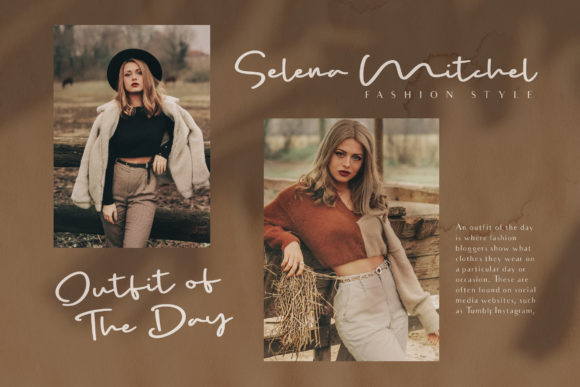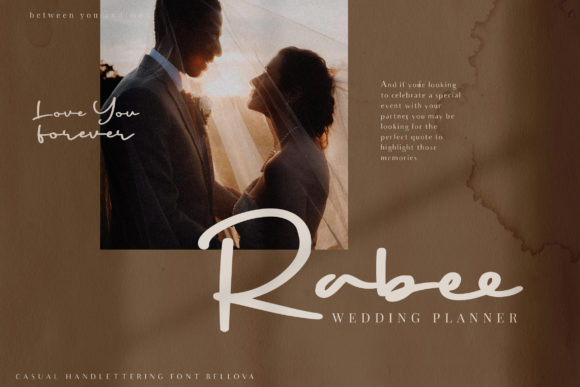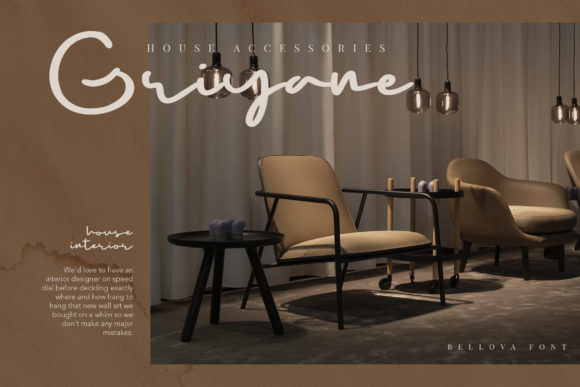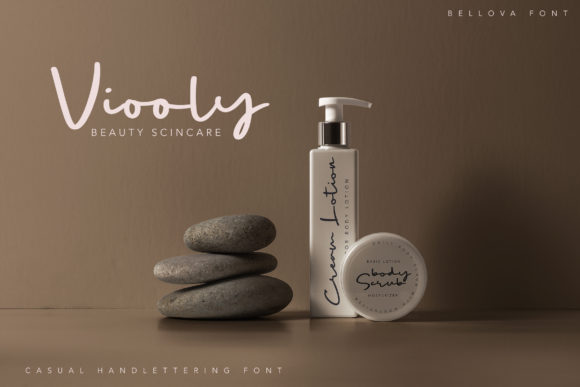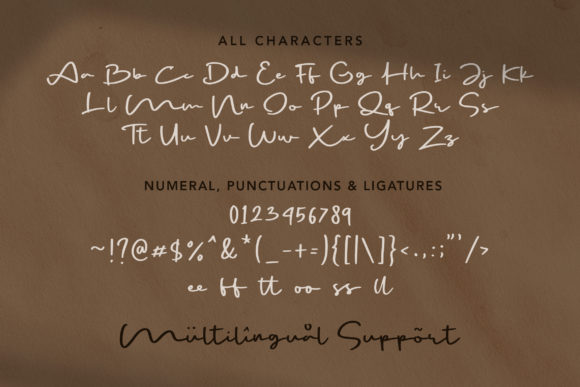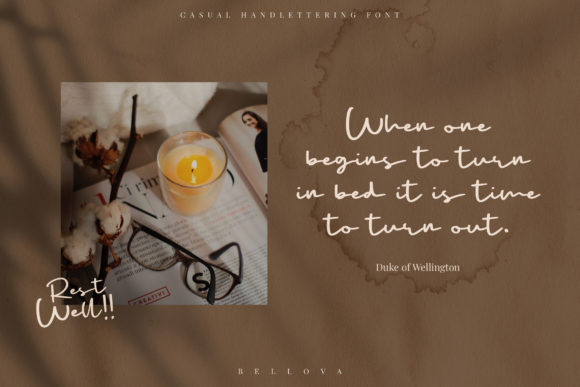
The Art of Handwritten Design: Introducing Bellova Font
Have you ever found yourself sitting in a cozy café, surrounded by scribbled notes and half-finished sketches, as the perfect design idea suddenly hits you? That’s exactly what happened to us when we discovered the Bellova Font – a refined and adaptable handwritten font that brings a touch of elegance to any design project.
Bellova Font is more than just a font – it’s a work of art that can elevate your designs to the next level. With its distinct and well-rounded letters, this font is perfect for creating fashionable designs that stand out from the crowd. Whether you’re a seasoned designer or just starting out, the Bellova Font is an invaluable asset to your toolkit, offering endless possibilities for creativity and self-expression.
Bellova Font Key Features
- Unique Characteristics: Bellova Font features a unique blend of modern and elegant design elements, with distinctive letterforms and subtle flourishes that add a touch of sophistication to any design.
Bellova Font Review
Overall, I’m really impressed with the Bellova Font. It’s a beautiful, elegant script font that adds a touch of sophistication to any design. ✨ The flowing lines and cursive connections make it perfect for headings, quotes, or even entire articles.
Here are some things that really work well for me:
- ✨ Beautiful script style that adds a touch of elegance to any design
- ✨ Highly versatile, suitable for headings, quotes, or entire articles
- ✨ Includes a wide range of language support, making it perfect for global designs
However, I do have some concerns about its limitations:
- ⚠️ May not be the best choice for very small text sizes, as the lines can become blurry
- ⚠️ Limited OpenType features, which can limit its ability to perform complex typography tasks
Overall, I’d give Bellova Font a solid 4 out of 5 stars. It’s a stunning script font that can elevate any design, but it’s not perfect. With a little caution when using it for small text sizes and complex typography tasks, it can be a fantastic addition to any designer’s toolkit.
Tips for Getting the Most Out of Bellova Font
For best results, use Bellova font in combination with a bold or italic style to create visual contrast.
Use Bellova font for headings, titles, or emphasis to draw attention to important information.
Bellova font is ideal for:
– Creative designs and graphics
– Branding and logo creation
– Editorial and publishing projects
– Digital marketing materials
Alternatives to Bellova Font
Playfair Display is a luxurious and elegant font, perfect for creating a sophisticated and high-end feel in your designs. It features intricate details and connections between letters, making it ideal for headings and titles. Use Playfair Display when you want to add a touch of sophistication and refinement to your design.
Playfair Display is similar to Bellova Font in its elegance and sophistication, but it has a more ornate and luxurious feel. While Bellova Font has a more modern and sleek look, Playfair Display is more traditional and vintage-inspired.